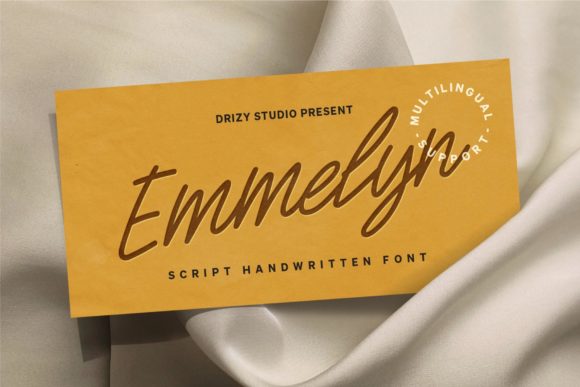
Dive into the world of storytelling and bring your creative visions to life with Emmelyn Font, a captivating script font that adds a touch of grace and charm to your designs. Created by the renowned Drizy Studio, Emmelyn is not just a font; it's an experience that captures the essence of handwritten beauty.
Emmelyn Font is a versatile font that thrives in a variety of settings, making it perfect for crafting logos, branding, social media graphics, invitations, cards, and so much more. Its elegant swashes add a touch of sophistication, while its carefully crafted characters exude a sense of warmth and authenticity.
With Emmelyn Font, you have the power to transform ordinary words into enchanting expressions. Its expressive style lends itself to creating quotes, poems, and other text-based designs that captivate and inspire. Let your creativity soar as you explore the endless possibilities that Emmelyn Font offers.
Whether you're a seasoned designer or just starting, Emmelyn Font is the perfect choice for adding a touch of magic to your projects. Its user-friendly format makes it accessible to everyone, allowing you to effortlessly create designs that connect with your audience on a deeper level.
So, embrace the art of storytelling and make your words come alive with Emmelyn Font. With its timeless beauty and versatility, Emmelyn is the perfect addition to your creative toolkit, ready to transform your designs into captivating masterpieces.